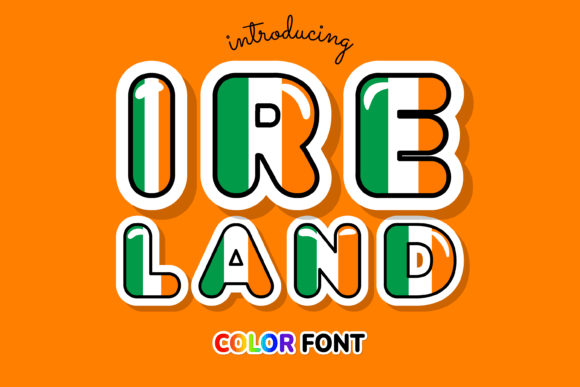
Journey to the Emerald Isle with Ireland Font - A Splash of Color for Your Creative Paradise.
Unleash your creativity with Ireland Font, a captivating color font inspired by the vibrant hues of the Irish flag. Each letter dances across the page like a lively jig, carrying a piece of Irish charm and whimsy. Whether you're envisioning custom designs, enchanting DIY crafts, or any project craving a touch of playful elegance, Ireland Font is your artistic passport to a world of imagination.
Picture the sun-kissed beaches of Ireland, where golden sands meet turquoise waters. Imagine lush green hillsides dotted with colorful cottages, and the warm laughter of locals filling the air. Ireland Font captures this essence of joy and vibrancy, translating it into a font that dances with life. It's a font that evokes feelings of happiness, wanderlust, and a longing for adventure.
Dive into a world of endless possibilities with Ireland Font. Use it to create eye-catching posters for your travel agency, design unique greeting cards for loved ones, or add a splash of color to your social media posts. Let your imagination run wild as you explore the myriad ways this font can enhance your creative projects.
With Ireland Font, you're not just downloading a font; you're inviting a piece of Ireland's captivating spirit into your creative space. Embark on this artistic journey today and let your imagination dance to the rhythm of Ireland!